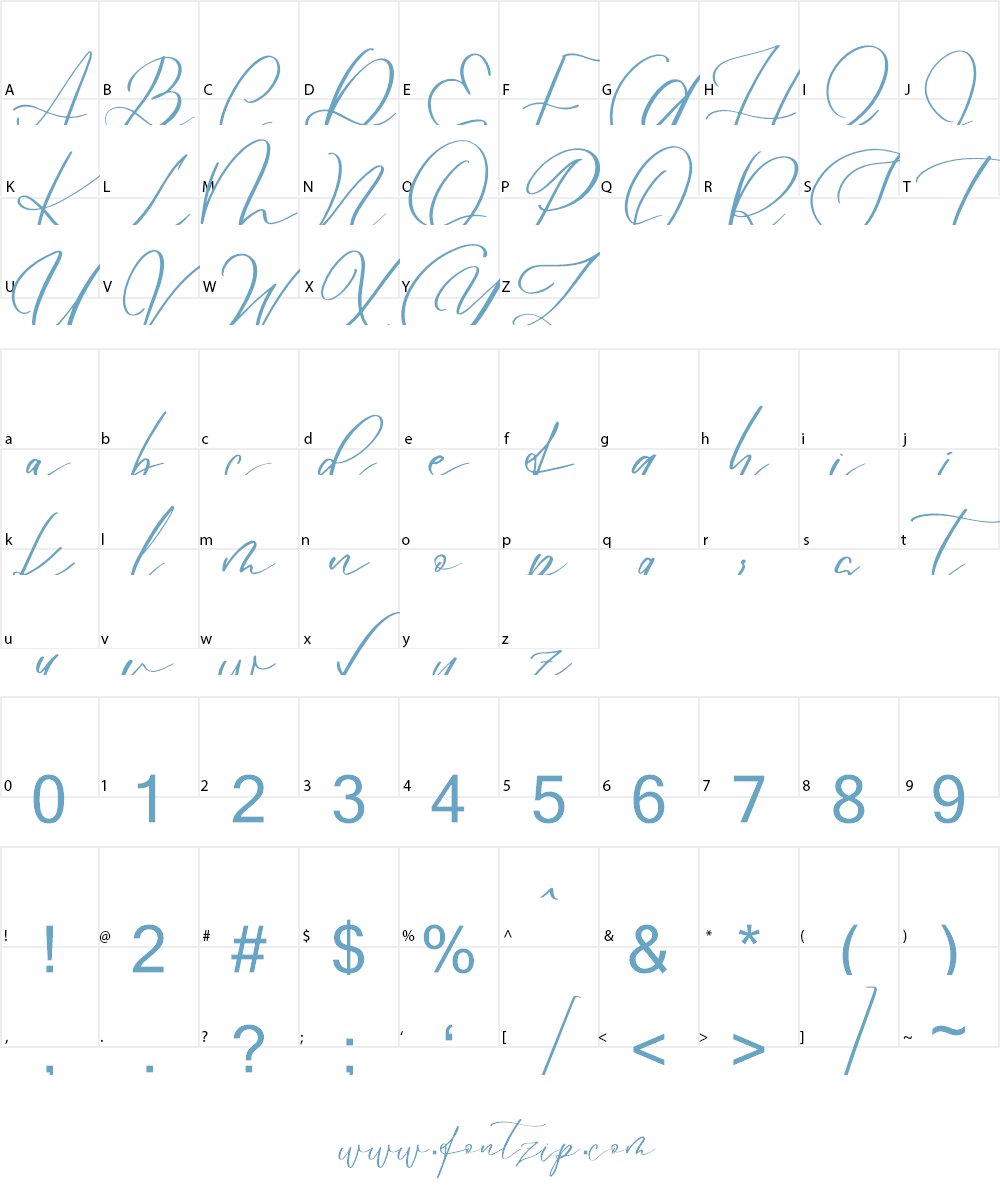
Le Jour is a beautiful calligraphy combine with modern serif. Made with naturally handwritten. The combination of the font will make your design more beautiful and luxury. This font is suitable for any design like wedding, branding, quotes, and etc.